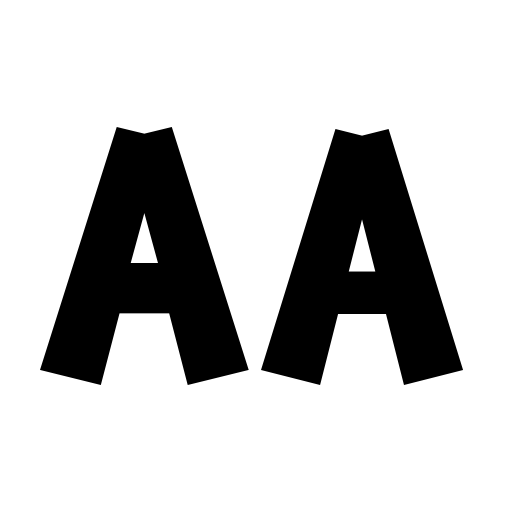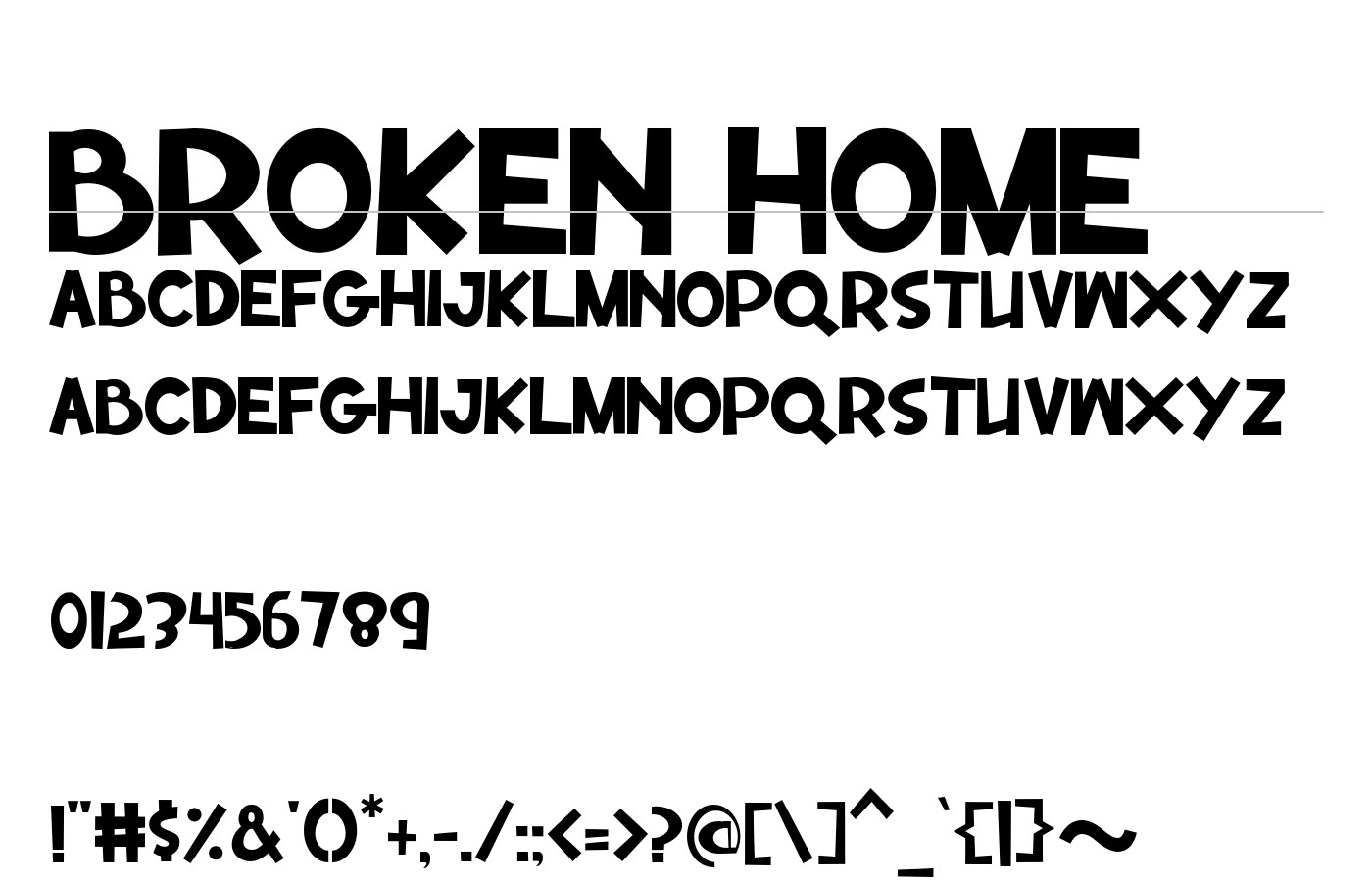
Broken Home Font is a bold, playful sans serif with a quirky, irregular style that features uneven letter shapes and sharp angles, giving it a lively and slightly chaotic feel. Its strong weight and condensed forms make it ideal for eye-catching headlines, posters, and creative branding where a fun, informal tone is desired. This font is perfect for projects that want to convey energy, creativity, and a touch of whimsy.
Broken Home Font
About Broken Home Font
| Font family | Broken Home Font |
| Designer | wildan suprian syah |